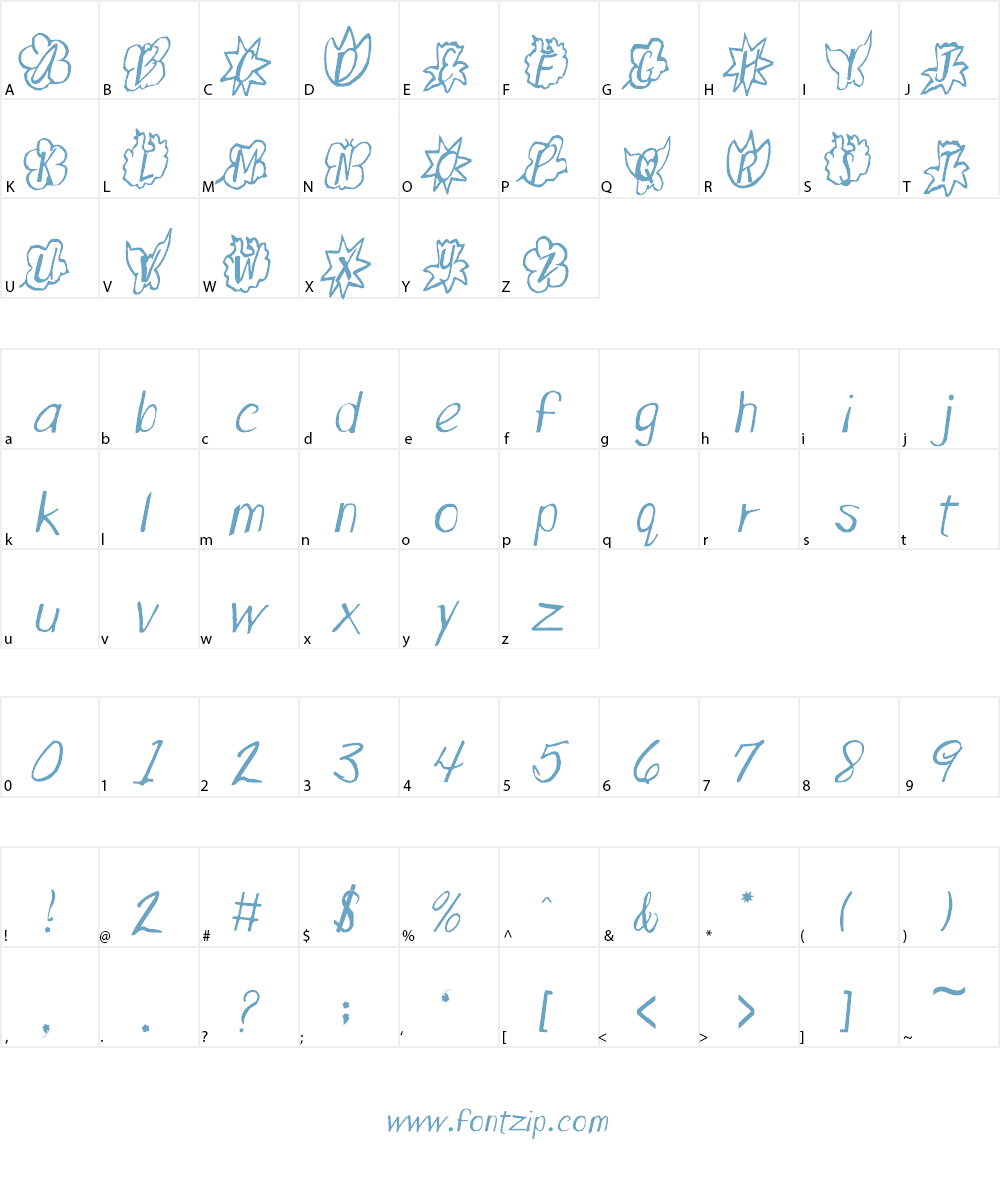
Spring Up has a drawing of a sign of spring on every capital. It is a hand drawn, printed casual font intended for a fun way to illustrate the season of spring or summer.